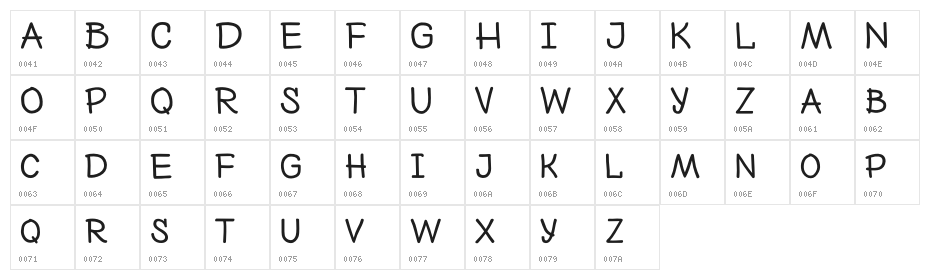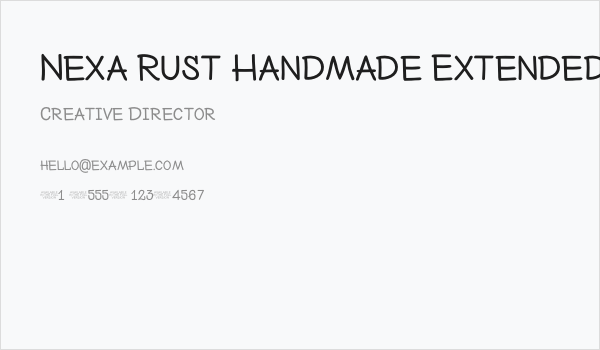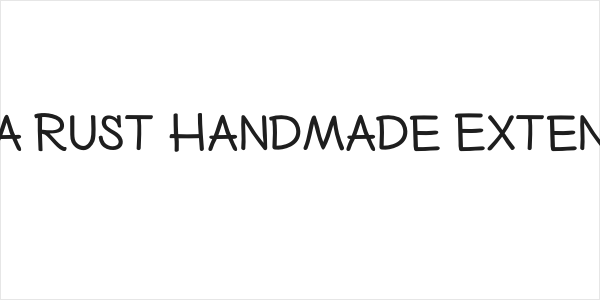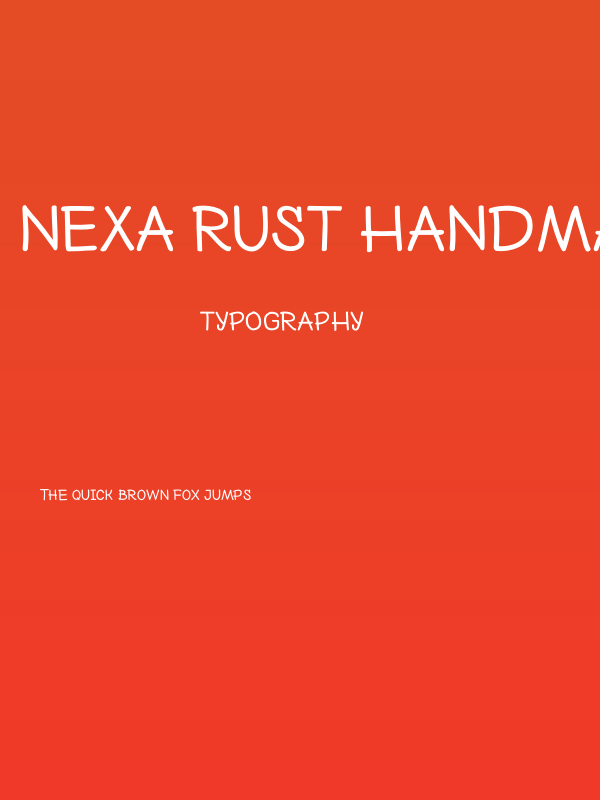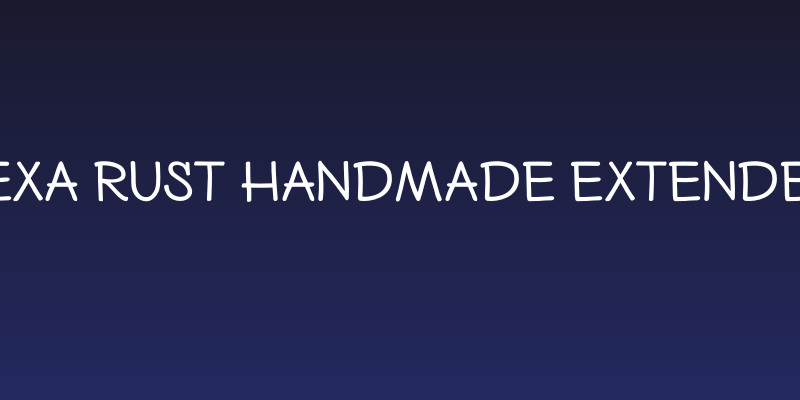
Nexa Rust Handmade Extended Font
Nexa Rust Handmade Extended Description
This font features a handmade, rustic style with an extended character set. The letters have a casual, hand-drawn appearance, characterized by uneven strokes and a playful, informal vibe. The uppercase and lowercase letters maintain a consistent style, with rounded edges and a slightly irregular baseline, adding to the handcrafted feel. The numerals and special characters follow the same design principles, ensuring a cohesive look across all elements. This font is ideal for projects that require a personal touch or a vintage aesthetic, offering versatility and charm.
| Proposed Projects | Ideal for branding, packaging, posters, and invitations that seek a personal or vintage touch. |